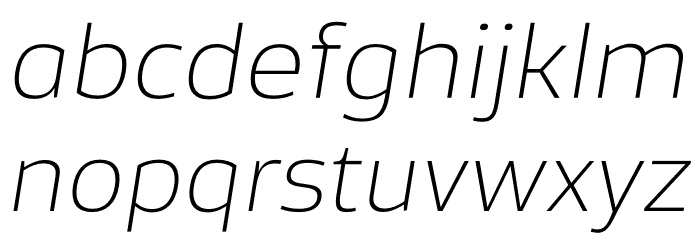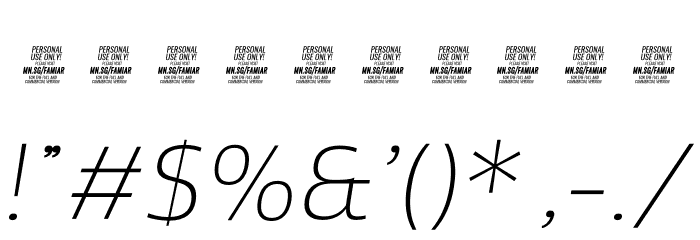
Famiar PERSONAL USE ONLY ExtraLight Italic Font
This font features a sleek and modern design with an elegant italic style. The characters are elongated with a slight slant, giving a sense of motion and sophistication. The strokes are thin and consistent, contributing to a clean and airy appearance. The uppercase and lowercase letters maintain a harmonious balance, while the numerals and special characters are crafted with precision. This font's minimalist aesthetic makes it suitable for contemporary design projects.
A sleek, modern italic font with thin strokes and a minimalist aesthetic.
- Proposed Projects: Ideal for branding, editorial design, fashion magazines, and modern websites.